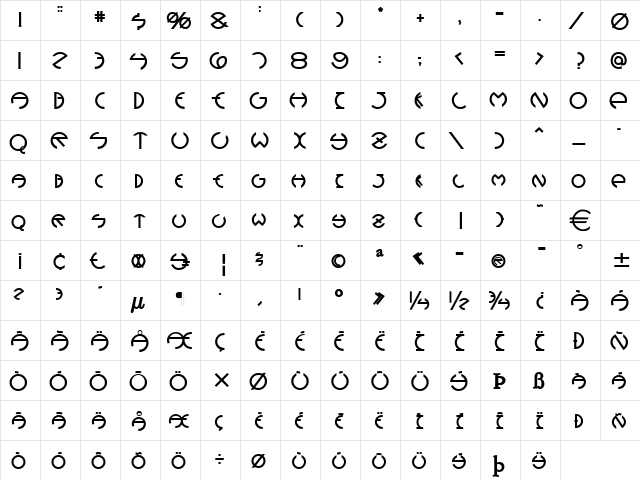
DevilHeavy Normal Font Preview
DevilHeavy Normal
Design Context for DevilHeavy Typeface
DevilHeavy is a composed and adaptable typeface that performs quietly and consistently across a wide range of design contexts.